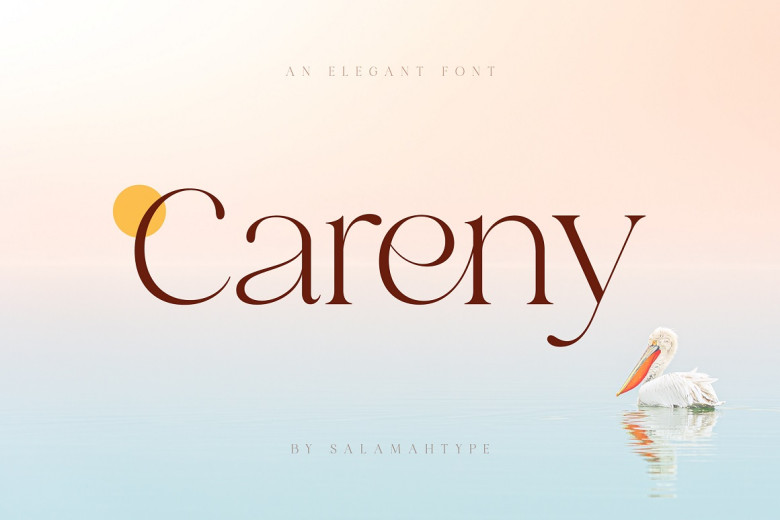
Careny Font
Careny font is an elegant yet contemporary serif styleface, boasting smooth curves and shapes for an aesthetically refined appearance. This modern aesthetic lends Careny an air of sophistication that adds style and class to all projects from logo branding to magazine layout. Careny offers seamless traditional elegance combined with contemporary design aesthetic.
Careny Serif Font